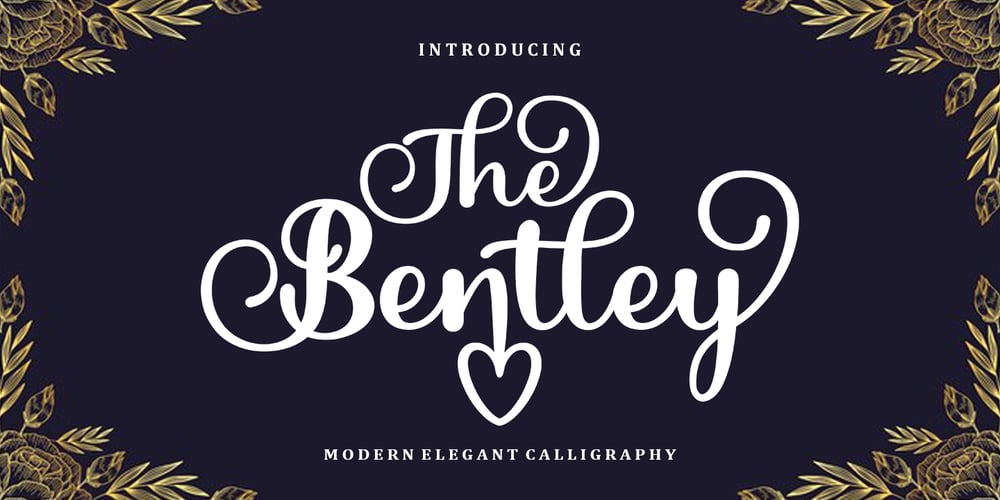
The Bentley
The Bentley font
The Bentley Font Family was designed by Mu Fazzal and published by Bosstypestudio. The Bentley contains 1 styles and family package options. The Bentley Script in a beautiful handwritten style. Equipped with 350 glyphs. The Bentley Script is perfect for branding projects, home appliance design, product packaging, use in business cards, invitation cards, etc. Simply as a stylish text overlay onto a background image or anything that requires a touch of elegance.